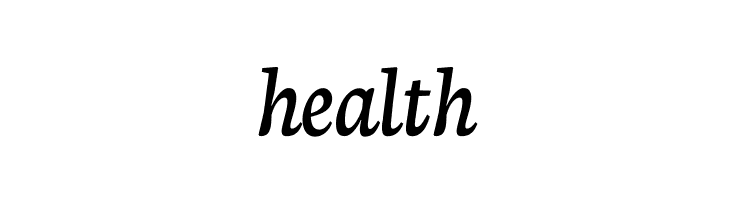
A vintage typewriter-style font with underscored, italicized characters.
A typewriter-style font with italicized characters and a strikethrough effect.
A vintage, typewriter-style font with a distressed, underscored design.
A bold, slashed font with a modern and dynamic style.
A bold, slashed font with a modern, edgy style.
A bold slab serif font with strong, uniform strokes and a modern classic appeal.
A modern serif font with medium contrast and elegant serifs.
A bold, geometric font with an urban, edgy style.
A classic serif font with elegant strokes and balanced readability.
A modern, clean sans-serif font with uniform stroke width and excellent readability.
A bold, modern sans-serif font with uniform weight and minimal contrast.
A modern, bold sans-serif font with clean lines and excellent legibility.
A classic serif font with elegant, refined strokes and balanced proportions.
A bold serif font with sharp serifs and a strong, authoritative presence.
A classic serif font with elegant strokes and balanced proportions.
A bold, 3D font with a strong, dynamic presence and a superhero-inspired style.
Bold, 3D italic font with outlined characters and dynamic style.
A bold, condensed font with a modern and clean aesthetic, perfect for impactful headlines.
A bold, dynamic font with geometric, blocky letters set against a black background.
A bold, narrow font with elongated characters and a dramatic style.
A tall, narrow font with elongated characters and a modern, artistic style.
A bold, distressed font with a vintage, rugged texture.
A quirky, hand-drawn font with irregular, organic shapes.
A decorative and artistic font with intricate, whimsical letterforms.
A tall, narrow, hand-drawn font with a playful, artistic style.
A collection of decorative ornaments featuring intricate swirls and floral motifs.
A classic serif typeface with elegant curves and balanced proportions.